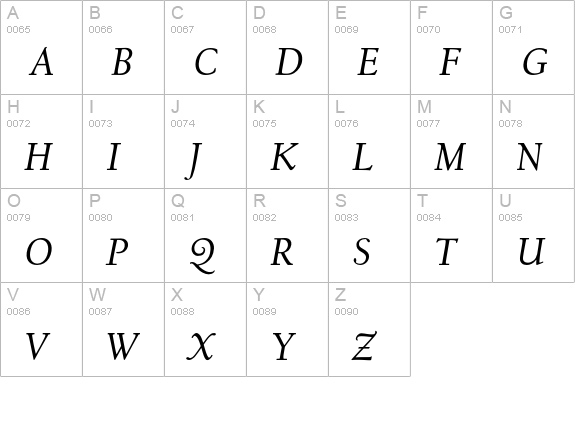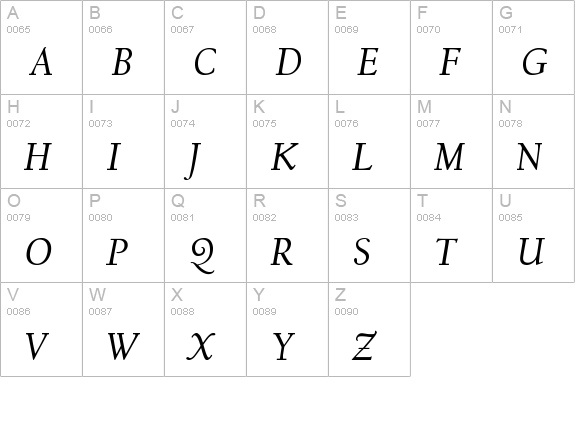
CalifornianText-Italic Font Details
CalifornianText-Italic is a distinctive, italic variant in the CalifornianText typeface family \xE2\x80\x94 well suited to design and typography projects.
CalifornianText-Italic font is a beautifully crafted typeface that exudes elegance and sophistication. Its distinctive italic style adds a touch of flair to any design project, making it perfect for creating stylish and eye-catching text. The sleek curves and graceful lines of this font make it a versatile choice for a wide range of applications, from branding and advertising to invitations and editorial design. What sets CalifornianText-Italic font apart is not only its aesthetic appeal but also the fact that it is available for free download at FontsMarket.com. This means that you can easily access this premium font without any cost, making it a valuable addition to your font collection. Whether you're a professional designer looking for a high-quality typeface or a casual user in search of a unique font for personal projects, CalifornianText-Italic font has you covered. Download it today and elevate your designs with its timeless charm and modern sophistication.